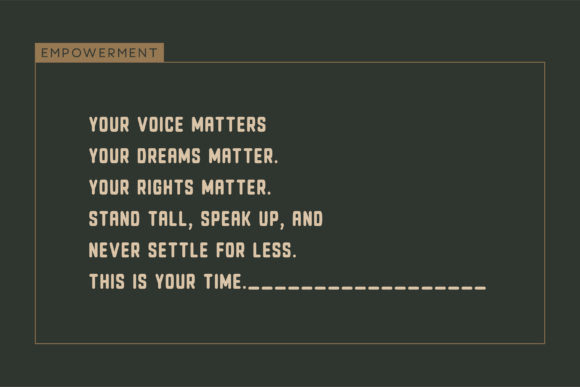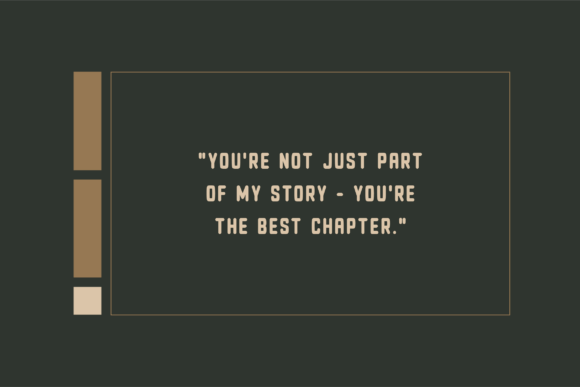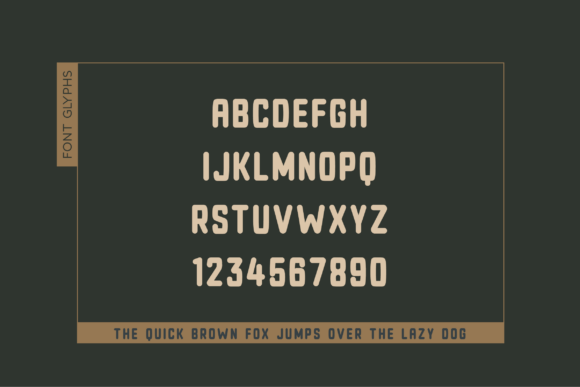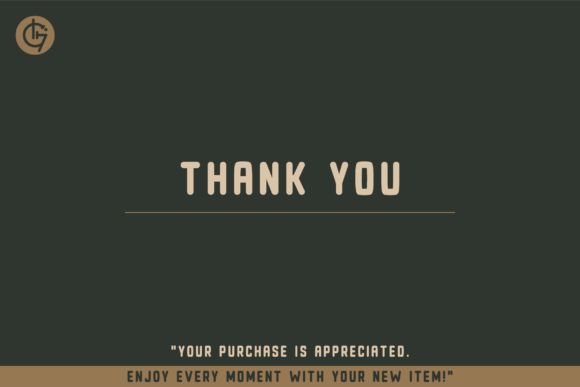
Introduction to Moderga Font
Have you ever stared at a blank canvas, eagerly awaiting the perfect spark to ignite your creativity? For designers and crafty enthusiasts alike, that moment of inspiration can be a game-changer. It’s in these moments that we discover the perfect design resource to elevate our projects and bring our vision to life. One such treasure trove of creativity is the Moderga Font – an all caps font that embodies the essence of whimsy and versatility.
With its dynamic compilation of capital letters, numerals, accented characters, and punctuation, the Moderga Font offers an unparalleled level of diversity, making it an invaluable asset for designers seeking to add a personal touch to their creative projects. Whether you’re working on a social media campaign, crafting exquisite cards, or designing statement t-shirts, this high-quality font is sure to amplify your message with finesse and style.
Key Features of Moderga Font
- High-quality design: Moderga Font is a premium font designed for creative projects, offering a unique and modern look.
- Large character set: Moderga Font includes a wide range of characters, including uppercase and lowercase letters, numbers, and punctuation marks.
- Perfect for creative projects: Moderga Font is ideal for use in various creative projects, such as logos, graphics, and typography-based designs.
Honest Review: Moderga Font
As a designer, I’ve had the opportunity to work with a wide range of fonts, but the Moderga Font has caught my attention lately. In this review, I’ll share my honest thoughts on this design resource.
- High-quality design: The Moderga Font has a sleek and modern design that makes it perfect for creative projects.
- Limited font variations: While the Moderga Font is well-designed, it’s available in limited font variations, which might limit its use in more complex design projects.
- Not suitable for all industries: The font’s modern design might not be suitable for industries that require a more traditional or conservative look.
Overall, I’m impressed with the Moderga Font’s design quality and its accessibility. While it has some limitations, I believe it’s a great addition to any designer’s toolkit. I’d definitely recommend it for creative projects that require a modern and sleek look.
Moderga Font is ideal for a variety of creative projects, including brochures, posters, business cards, and social media graphics. Its clean and modern design makes it perfect for design resources such as logos, icons, and typography-based designs.